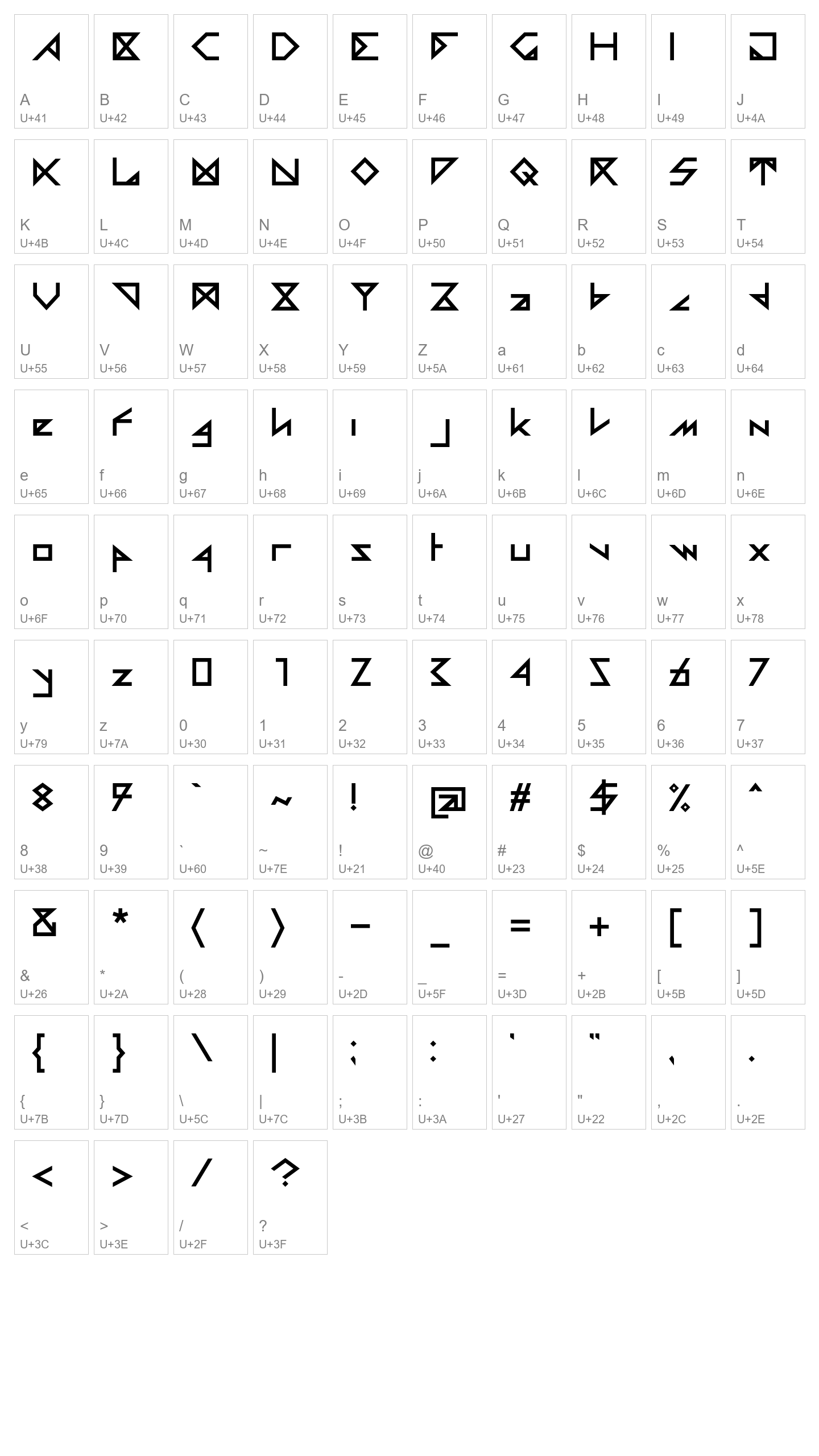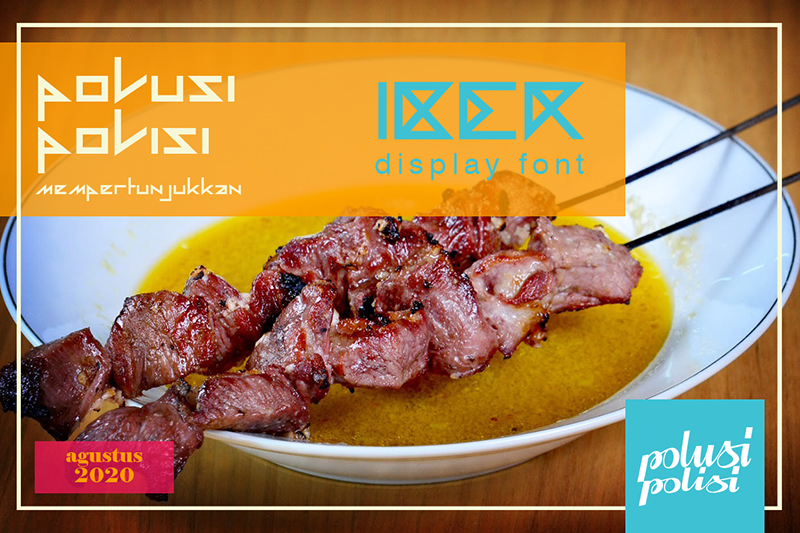
Iber
Iber is a display font that accentuates geometric lines, has a strong and firm impression.
Iber is perfect for use on decals, logo design, media, merchandise, stickers, t shirt designs, etc.
Features :
- Uppercase
- Lowercase
- Numbers
- Punctuation